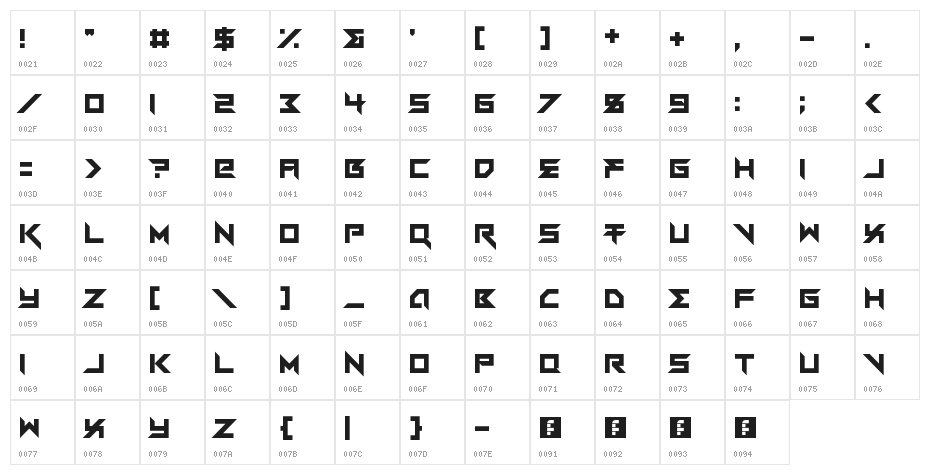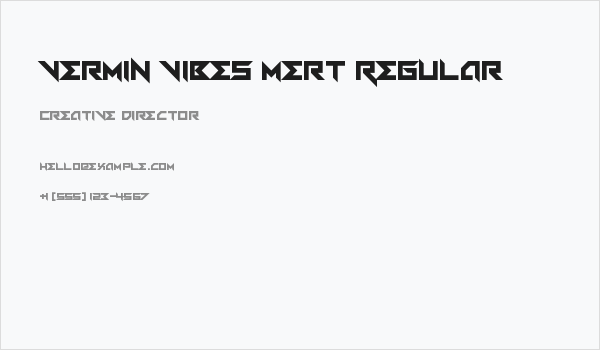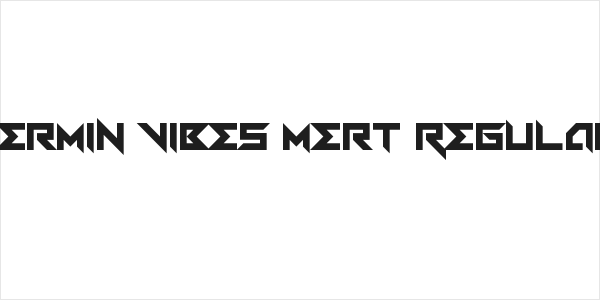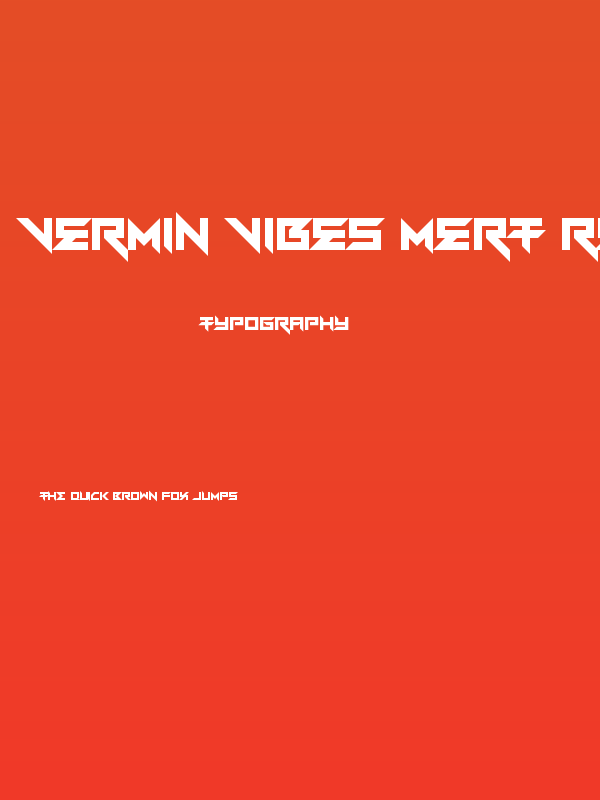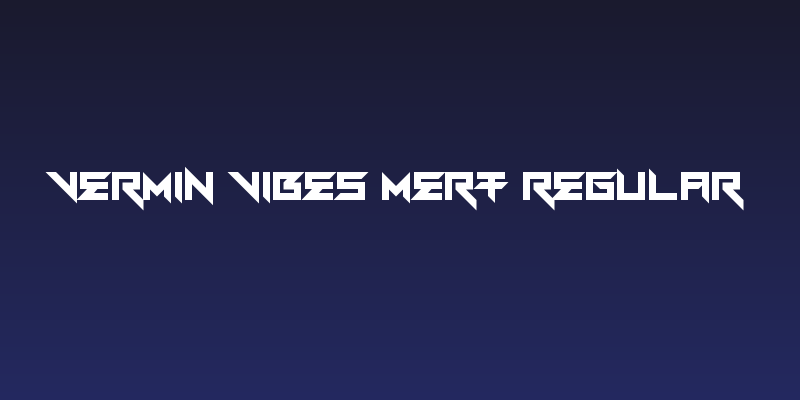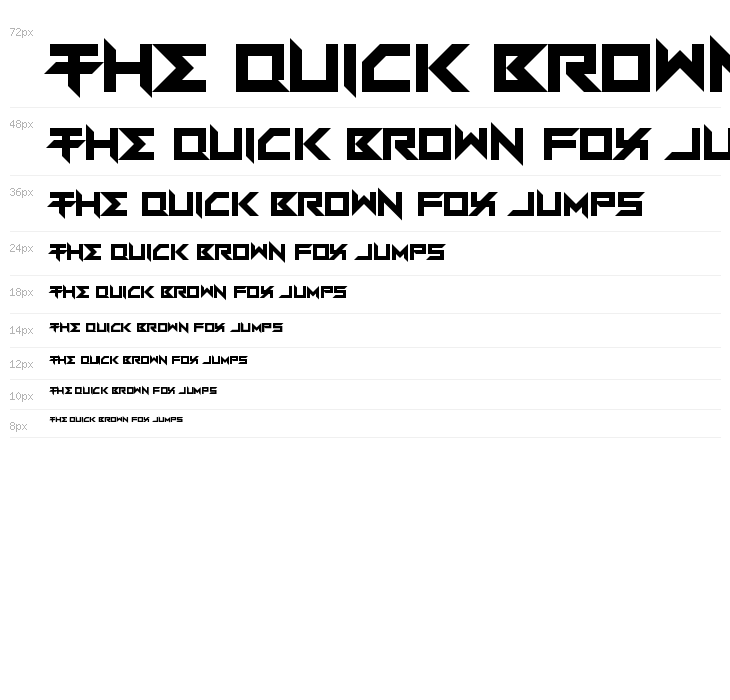
Vermin Vibes Mert Regular Font
Vermin Vibes Mert Regular Description
This font features a bold and angular design, characterized by sharp edges and geometric forms. The letters are constructed with a futuristic aesthetic, incorporating pointed tips and diagonal cuts that give it a dynamic and aggressive appearance. The uppercase and lowercase letters maintain a consistent style, with the lowercase mirroring the uppercase in form. Numbers and special characters follow the same angular theme, ensuring uniformity across all glyphs. The overall design is striking and modern, making it suitable for projects that require a strong visual impact.
Overall StyleFuturistic, Modern
Proposed ProjectsIdeal for video game titles, sci-fi movie posters, tech branding, and edgy graphic designs.